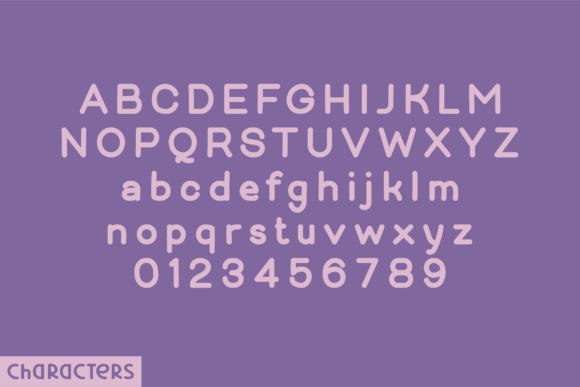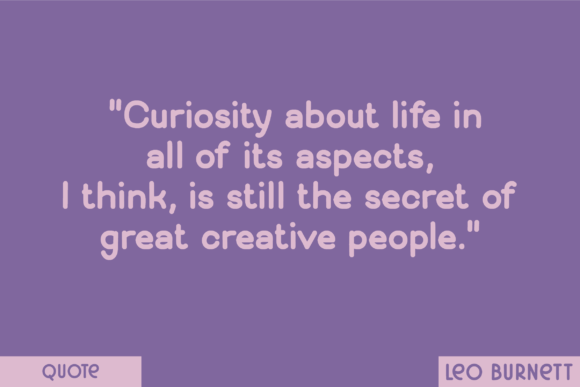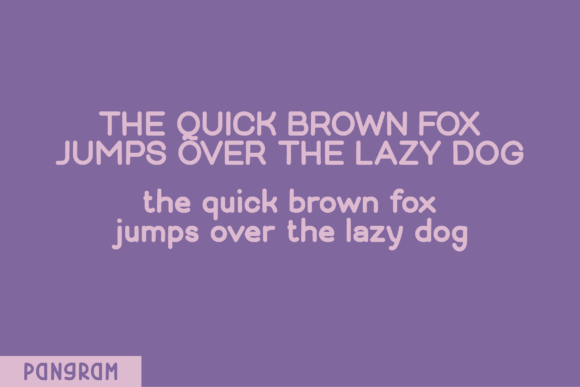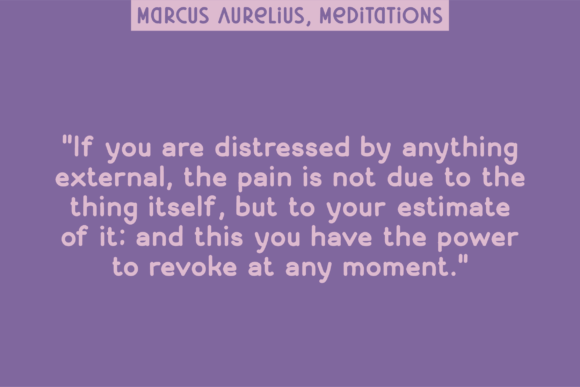
Introducing Flamingo Font: The Perfect Blend of Boldness and Classic Elegance
Are you a designer or crafter looking for a font that can add a touch of sophistication and uniqueness to your designs? Look no further than Flamingo Font, a bold and eye-catching sans serif font that’s perfect for a wide range of applications. From quotes and notes to tees, logos, and social media graphics, Flamingo Font is the ideal choice for anyone seeking a classic yet modern aesthetic.
What Makes Flamingo Font So Special?
Flamingo Font stands out from the crowd with its distinctive bold and sans serif design. Its clean lines, precise curves, and perfectly balanced proportions make it a versatile font that can be used in various contexts. Whether you’re creating a stylish logo, a thought-provoking quote, or a catchy social media post, Flamingo Font is sure to make a lasting impression.
Key Features of Flamingo Font
- Bold and Unique Design: Flamingo Font boasts a bold and eye-catching design that’s sure to grab attention.
- Sans Serif Style: Its clean and minimalist sans serif style makes it perfect for modern designs.
- Classic Touch: Despite its modern look, Flamingo Font has a classic touch that adds a level of sophistication to any design.
- High Versatility: Flamingo Font can be used in a wide range of applications, from quotes and notes to logos, tees, and social media graphics.
Use Cases for Flamingo Font
Flamingo Font is an incredibly versatile font that can be used in various contexts. Here are some of the most popular use cases:
- Quotes and Notes: Add a touch of elegance to your inspirational quotes and notes with Flamingo Font.
- T-Shirts and Merchandise: Create stylish and eye-catching designs for t-shirts, hoodies, and other merchandise.
- Logos and Branding: Use Flamingo Font to create a bold and memorable logo for your brand.
- Social Media Graphics: Create stunning social media graphics, including Facebook posts, Instagram stories, and Twitter headers.
Why Designers and Crafters Love Flamingo Font
Flamingo Font has quickly become a favorite among designers and crafters due to its unique combination of boldness and classic elegance. Here are some reasons why:
- Easy to Read: Despite its bold design, Flamingo Font is easy to read, even in small sizes.
- Highly Versatile: Flamingo Font can be used in a wide range of applications, making it a great addition to any design toolkit.
- Unique Aesthetic: Flamingo Font’s distinctive design sets it apart from other fonts, making it perfect for designers and crafters seeking a unique look.
In conclusion, Flamingo Font is a bold and unique sans serif font that’s perfect for designers and crafters seeking a classic yet modern aesthetic. Its versatility, readability, and distinctive design make it an excellent choice for a wide range of applications. Whether you’re creating quotes, logos, social media graphics, or merchandise, Flamingo Font is sure to add a touch of sophistication and elegance to your designs.